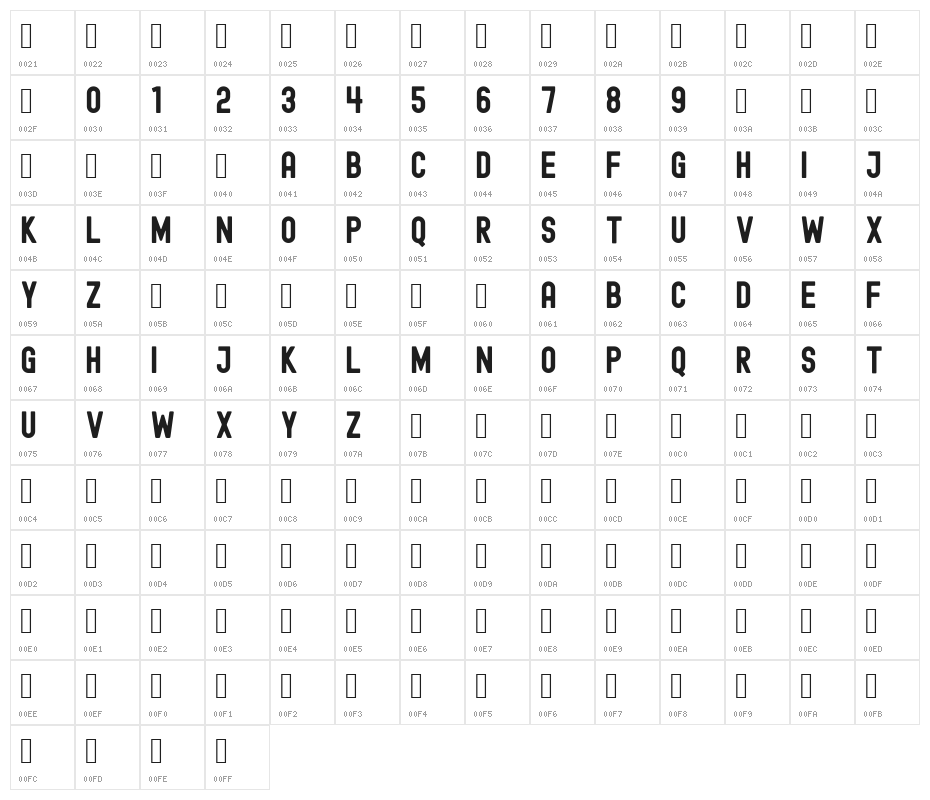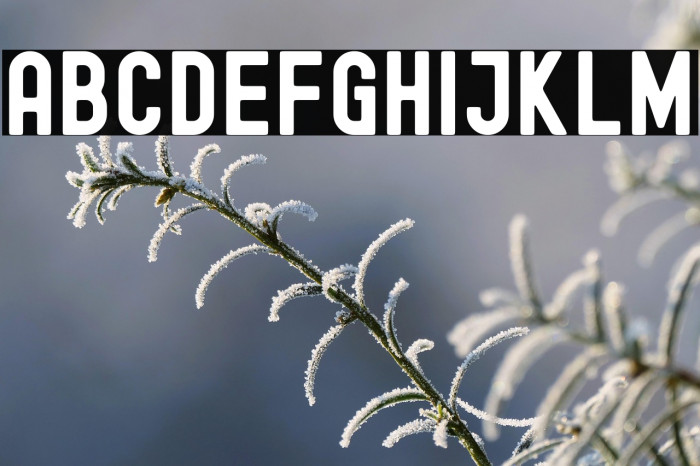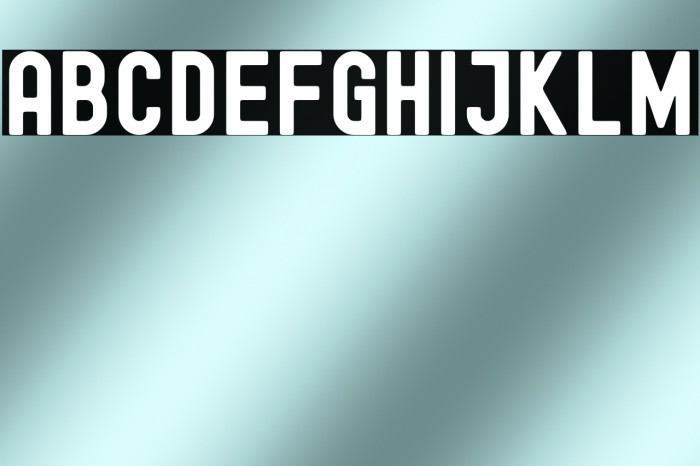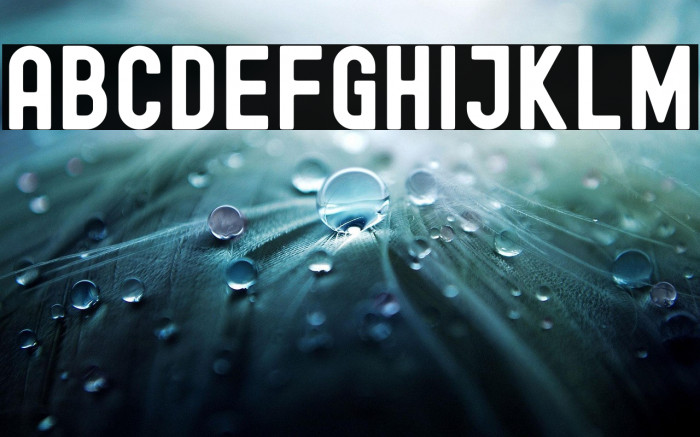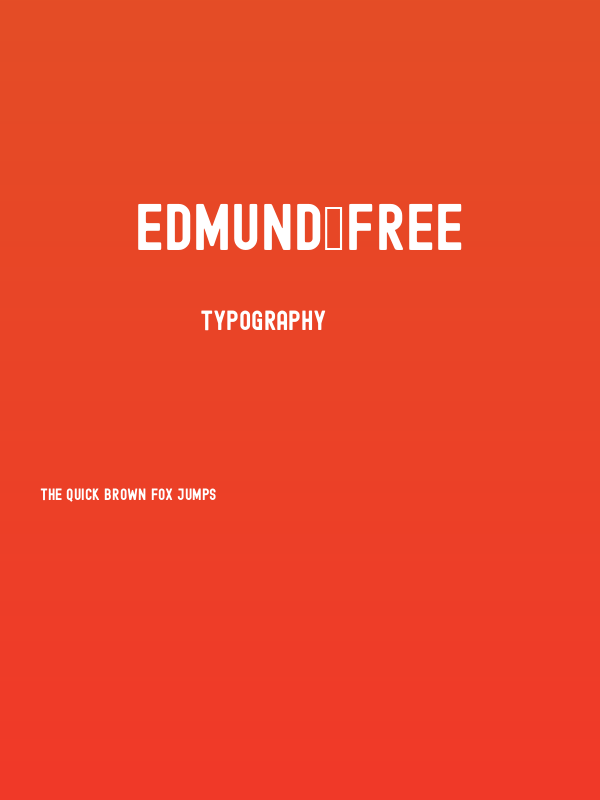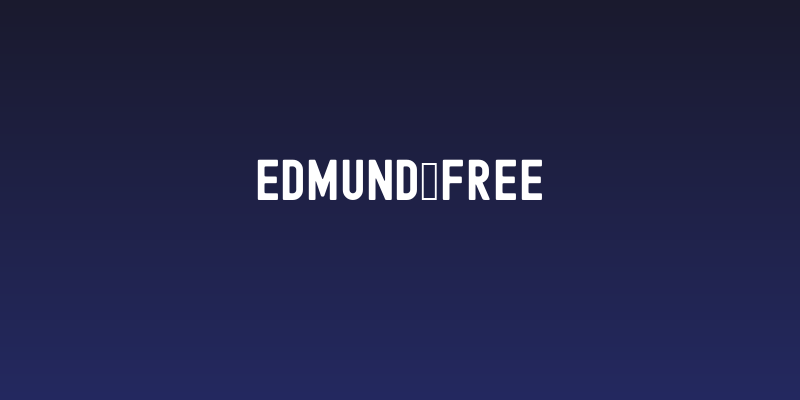
Edmund-Free Font
Edmund-Free Description
This font features a bold, geometric sans-serif style with uniform stroke widths, creating a strong and modern appearance. The characters are well-defined with a slightly condensed form, making them suitable for impactful headlines and titles. The uppercase letters are consistent in height, while the numerals maintain a clear and straightforward design. The absence of serifs and the uniformity in stroke thickness contribute to a clean and contemporary look. The font's simplicity and clarity make it versatile for various design applications, from digital to print media.
Proposed ProjectsIdeal for branding, advertising, headlines, posters, and digital media.